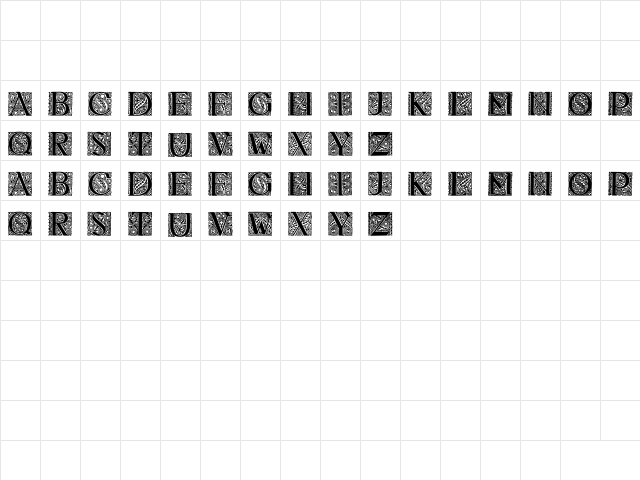
Glory Caps Regular
Design Context for Glory Caps
Glory Caps is a composed and adaptable typeface that performs quietly and consistently across a wide range of design contexts.
Pro Tip: Use Glory Caps in both headline and body roles to test its range before committing to a single application.